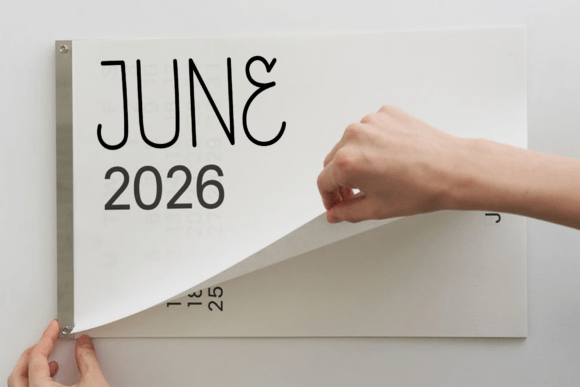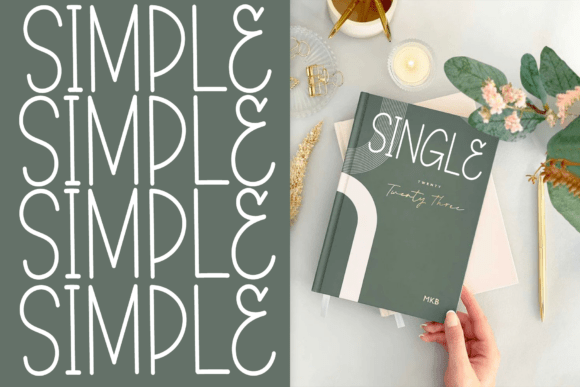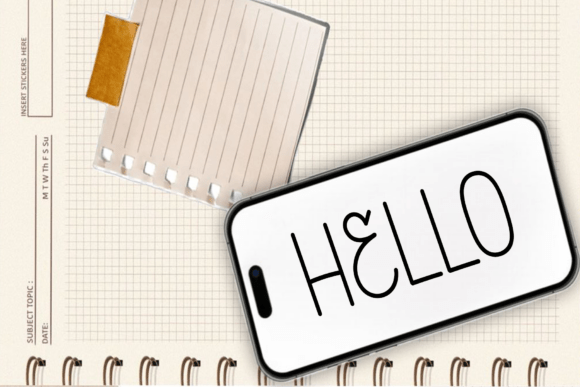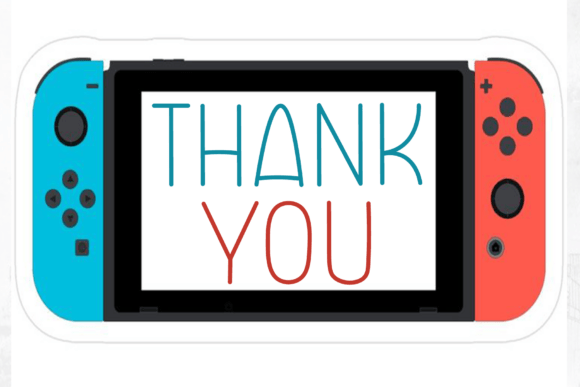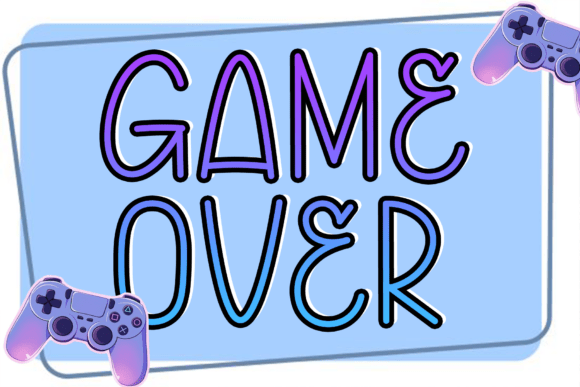
Introducing the Game Over Font: A Modern Twist on Playful Typography
Step into a world of vibrant energy and modern playfulness with the Game Over font, a unique typeface that redefines contemporary display lettering. This Game Over typeface features tall, slender proportions and charmingly irregular, hand-drawn curves that breathe life and personality into every word.
A Sleek, Monolinear Aesthetic
Unlike standard blocky gaming fonts, the Game Over font offers a sleek, monolinear aesthetic that feels both nostalgic for the classic arcade era and perfectly suited for today’s minimalist design trends. The light, airy strokes of the Game Over typeface make it an exceptional choice for editorial headers, custom planners, and lifestyle branding where you want to maintain a sense of fun without sacrificing sophistication.
Whether you are designing eye-catching social media graphics or unique merchandise, the Game Over font provides a versatile foundation that pairs beautifully with bold sans-serifs or delicate scripts. Its unique blend of playfulness and elegance makes it an ideal choice for designers and crafters looking to add a touch of whimsy to their creations.
Perfect for Modern Design Trends
The Game Over font is perfectly suited for modern design trends that emphasize minimalism and simplicity. Its sleek, monolinear aesthetic and charmingly irregular curves make it an excellent choice for designers looking to create visually striking designs that stand out from the crowd.
Use Cases for the Game Over Font
- Editorial Headers: Use the Game Over font to create eye-catching headers for articles, blog posts, and other written content.
- Custom Planners: Add a touch of personality to your custom planners with the Game Over font.
- Lifestyle Branding: Use the Game Over font to create unique and memorable branding for your lifestyle business.
- Social Media Graphics: Create visually striking social media graphics with the Game Over font.
- Merchandise: Use the Game Over font to create unique and eye-catching merchandise, such as t-shirts, stickers, and more.
Why Choose the Game Over Font?
The Game Over font offers a unique combination of playfulness and elegance that makes it an excellent choice for designers and crafters. Its sleek, monolinear aesthetic and charmingly irregular curves make it perfect for modern design trends, while its versatility makes it suitable for a wide range of design applications.
Tips for Using the Game Over Font
- Pair with Bold Sans-Serifs: Pair the Game Over font with bold sans-serifs for a striking contrast.
- Pair with Delicate Scripts: Pair the Game Over font with delicate scripts for a elegant and sophisticated look.
- Use for Headings: Use the Game Over font for headings and titles to add a touch of personality to your design.
In conclusion, the Game Over font is a unique and versatile typeface that offers a modern twist on playful typography. Its sleek, monolinear aesthetic and charmingly irregular curves make it perfect for modern design trends, while its versatility makes it suitable for a wide range of design applications. Whether you are a designer or crafter, the Game Over font is an excellent choice for adding a touch of whimsy to your creations.